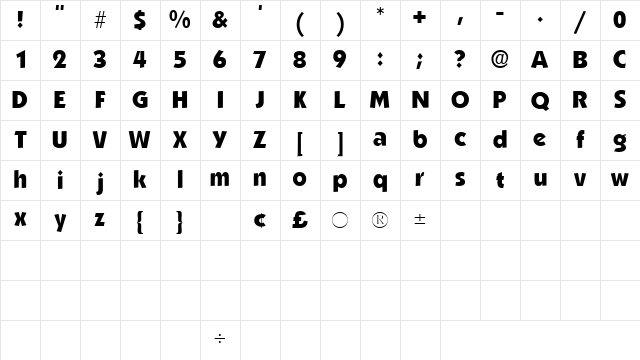
AnakeimSSK Regular
AnakeimSSK Family
Complete AnakeimSSK Regular glyph index. Displaying only characters natively supported by AnakeimSSK Regular font.
Design Context for AnakeimSSK
AnakeimSSK is a composed and adaptable typeface that performs quietly and consistently across a wide range of design contexts.